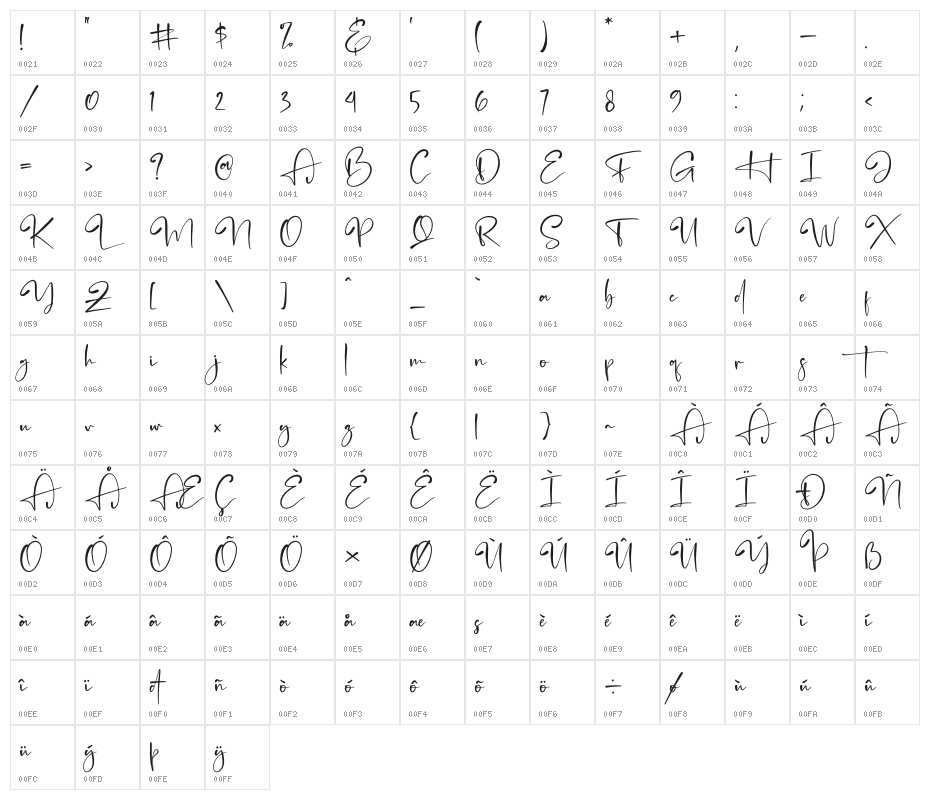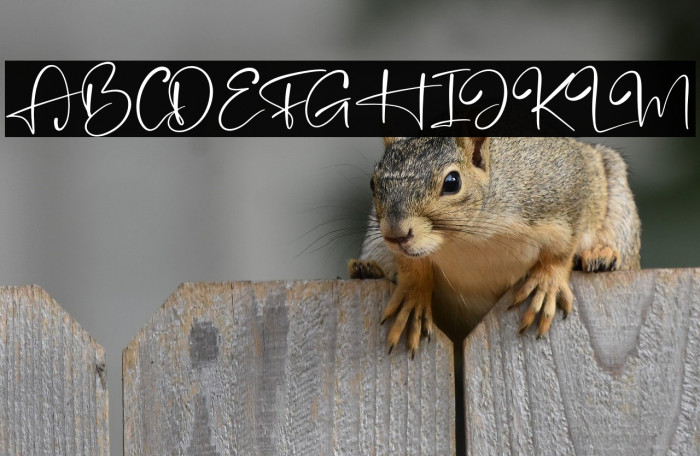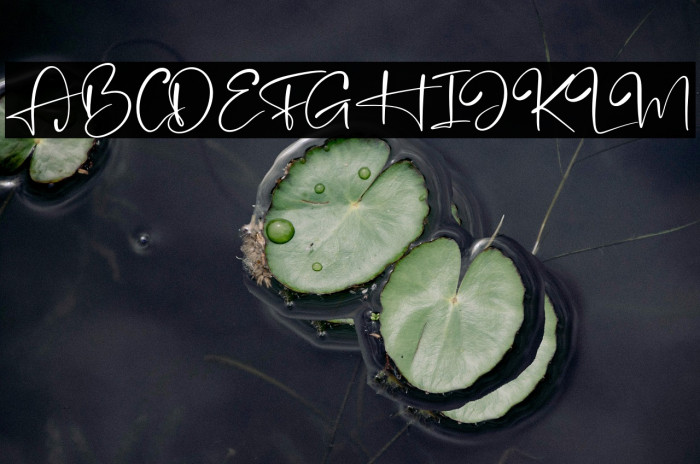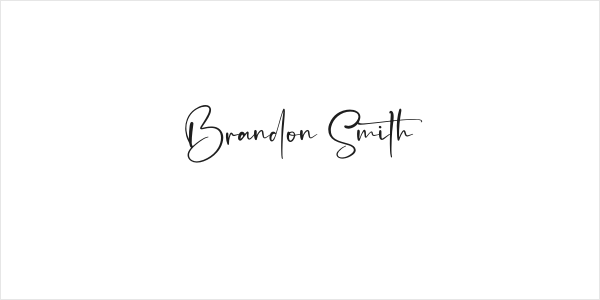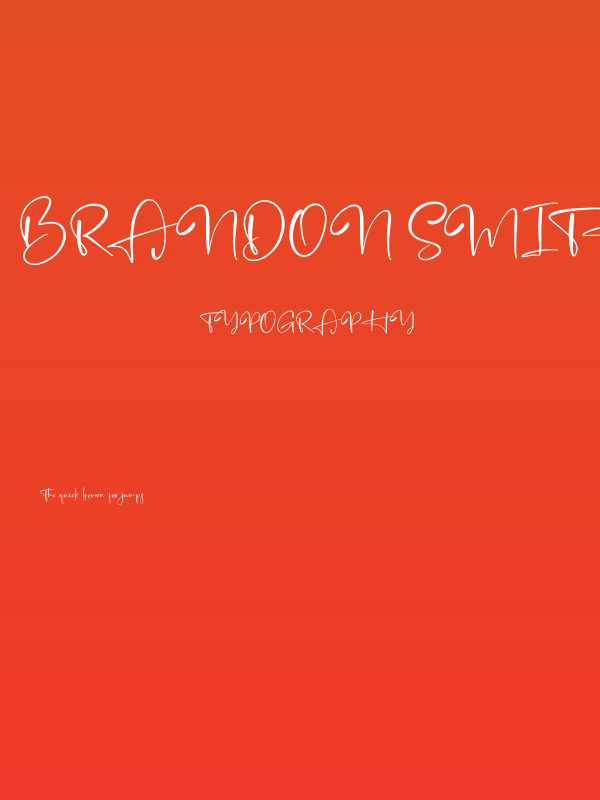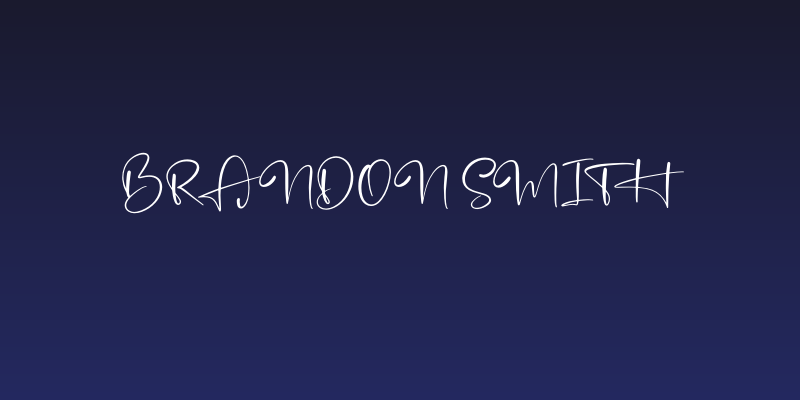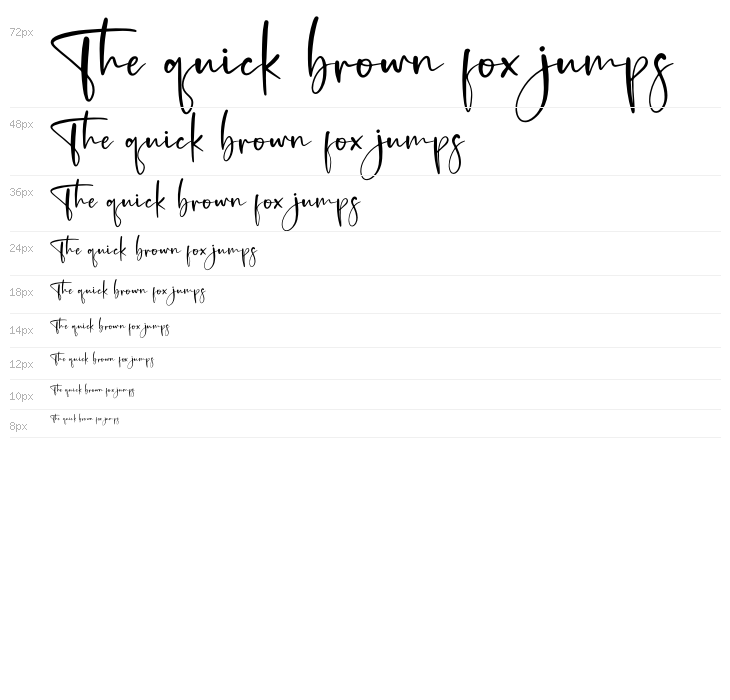
Brandon Smith Font
Brandon Smith Description
This font exhibits a dynamic and flowing script style, characterized by its elegant and fluid strokes. The uppercase letters are bold and expressive, with a distinct flair that adds a touch of sophistication. The lowercase letters maintain a consistent rhythm, enhancing readability while preserving the artistic nature of the script. Numbers and special characters are crafted with the same attention to detail, ensuring a cohesive look across all elements. The overall design is both modern and timeless, making it suitable for a variety of creative applications.
| Proposed Projects | Ideal for wedding invitations, branding projects, logo design, and elegant packaging. |